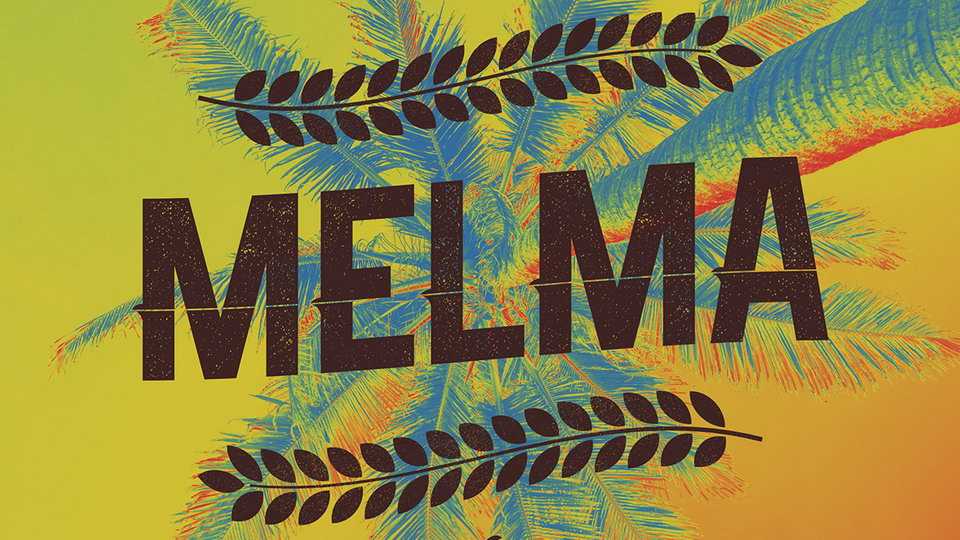
Melma Font Family › Fontesk – Download Grátis
Download Melma typeface, a unique display font familyin three styles with a vintage feel. Melma perfectly suits for vintage and handcrafted design, logos, labels and badges, headlines and posters and other creative projects.
Designer: Rafa Miguel